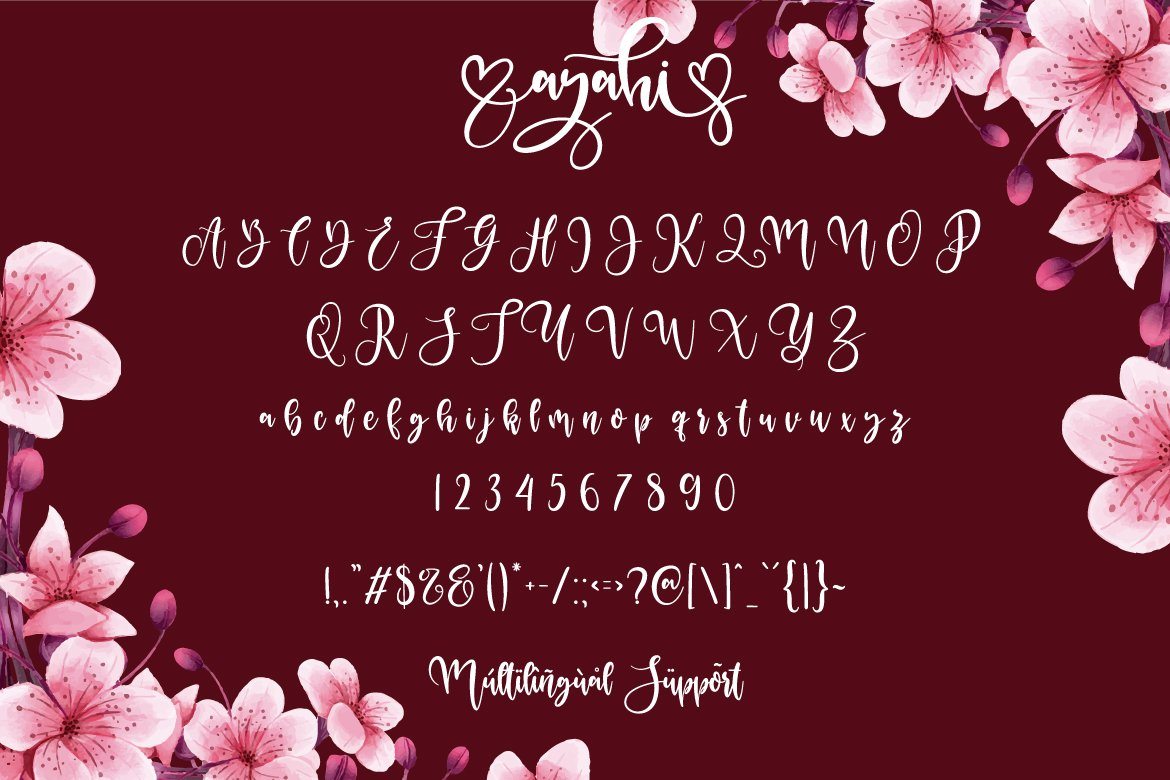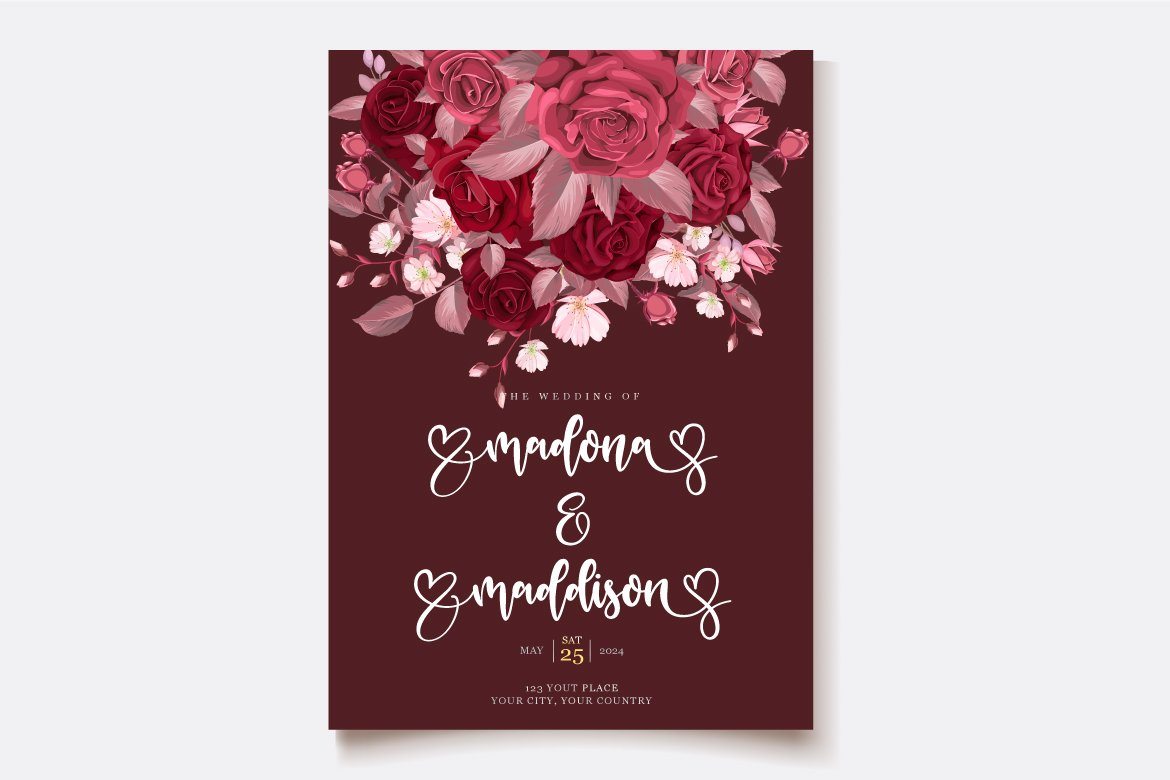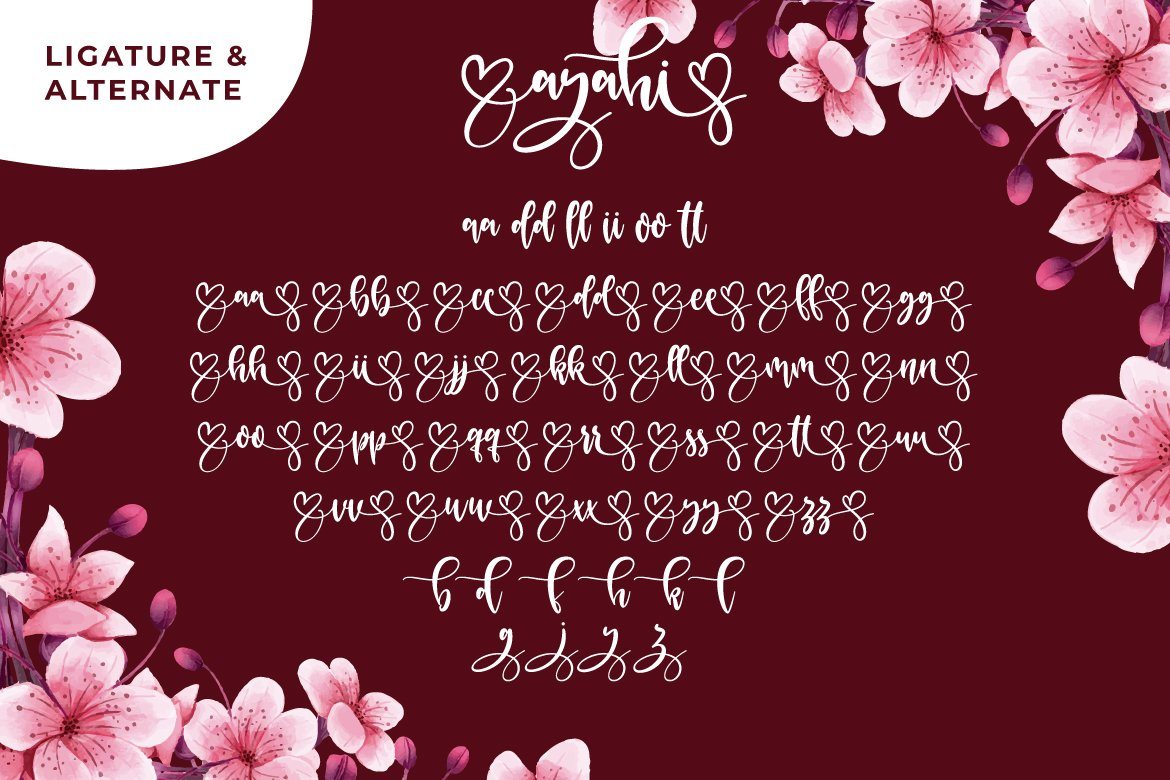
About Ayahi Script
Ayahi is a delicate, elegant and flowing handwritten font. It has beautiful and well balanced characters and as a result, it matches a wide pool of designs. Hamburg features a varying baseline, smooth lines, gorgeous glyphs and stunning alternates. Add it to your most creative ideas and notice how it makes them come alive! what’s inside : Ayahi otf,ttf,woff Accents (Multilingual Characters) PUA encoded Numerals and Punctuations (OpenType Standard) Many of alternates ligature